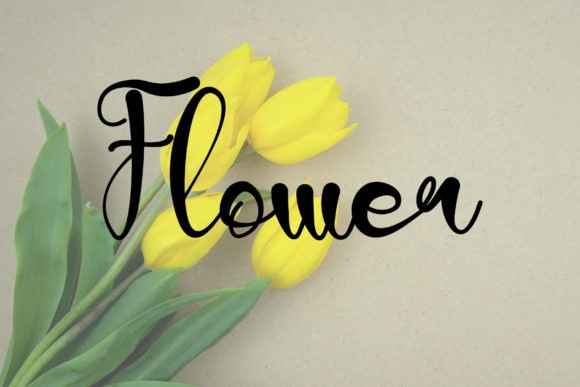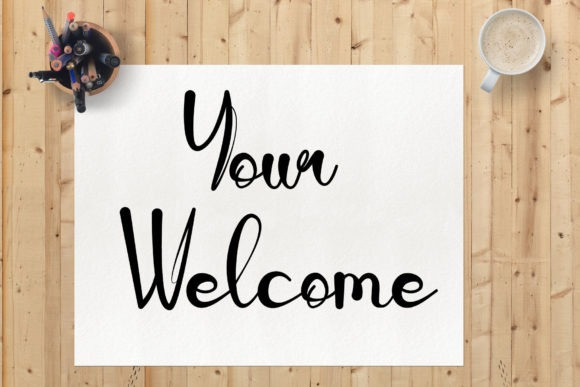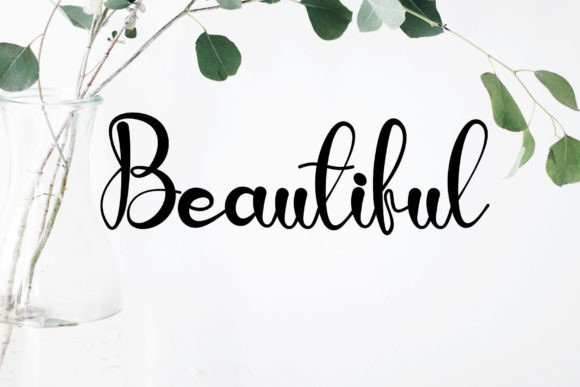
Beautiful Typeface
Beautiful Typeface, is an elegant and dainty handwritten font that features sweet and delicate swashes. This original look will appeal to a wide range of crafty ideas, from letterheads and titles, to stationery.